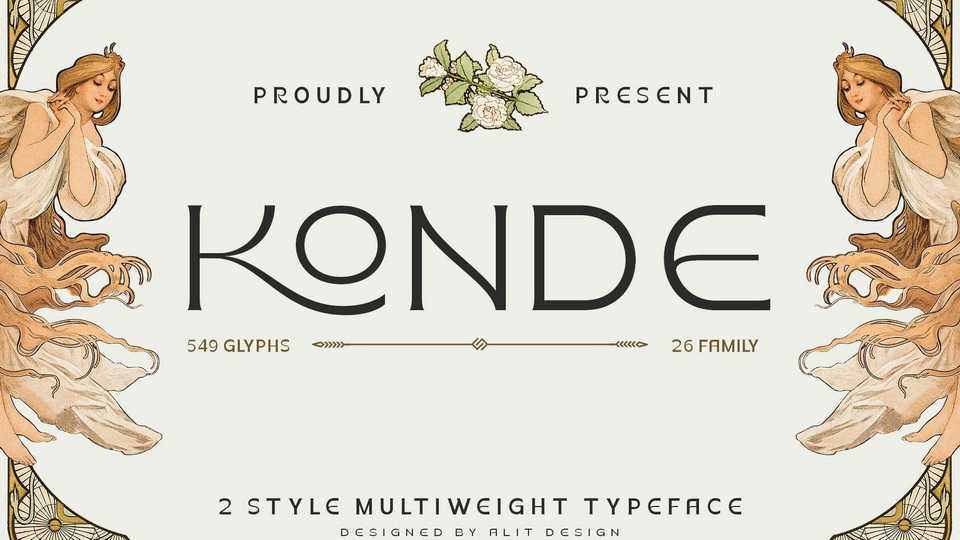
Download Konde font, a modern display typeface designed with a retro style concept that has a unique and cool shape. Konde is suitable for headers, book covers and designs that have a retro elegant concept.